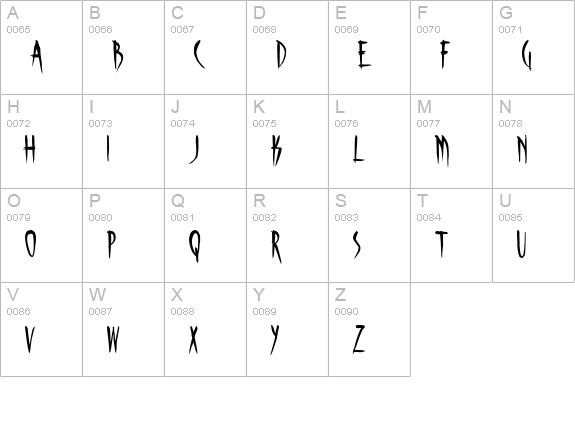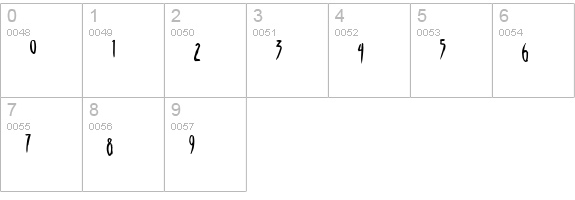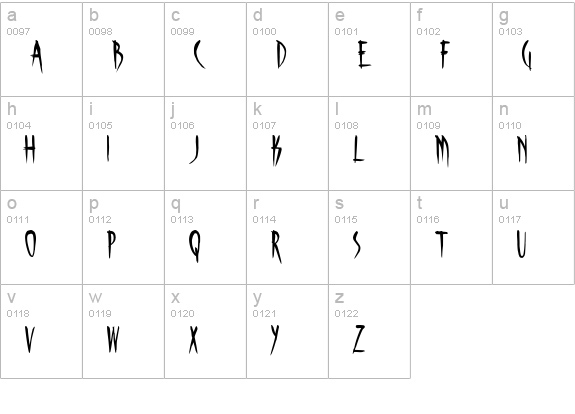
Skinner AOE Font Details
Introducing Skinner AOE, a magnificent font that effortlessly combines sophistication and playfulness. With its elegant curves and bold strokes, Skinner AOE captivates the eye and adds a touch of charm to any design project. This versatile font is perfect for a wide range of applications, from branding and logo design to headlines and social media graphics. Its unique character set allows for endless creative possibilities, making it an essential tool for designers, artists, and creatives alike. One of the best features of Skinner AOE is that it is available for free! Yes, you read that right. This incredible font can be freely downloaded at FontsMarket.com, allowing you to elevate your designs without breaking the bank. Whether you're designing a wedding invitation, crafting a magazine layout, or creating an eye-catching poster, Skinner AOE is the ideal choice. Its clean lines and distinctive style will make your designs stand out from the crowd, leaving a lasting impression on your audience. Don't miss out on the opportunity to add Skinner AOE to your font library. Download it for free today at FontsMarket.com and unlock a world of creative possibilities. Embrace the elegance and playfulness of Skinner AOE and watch your designs come to life.